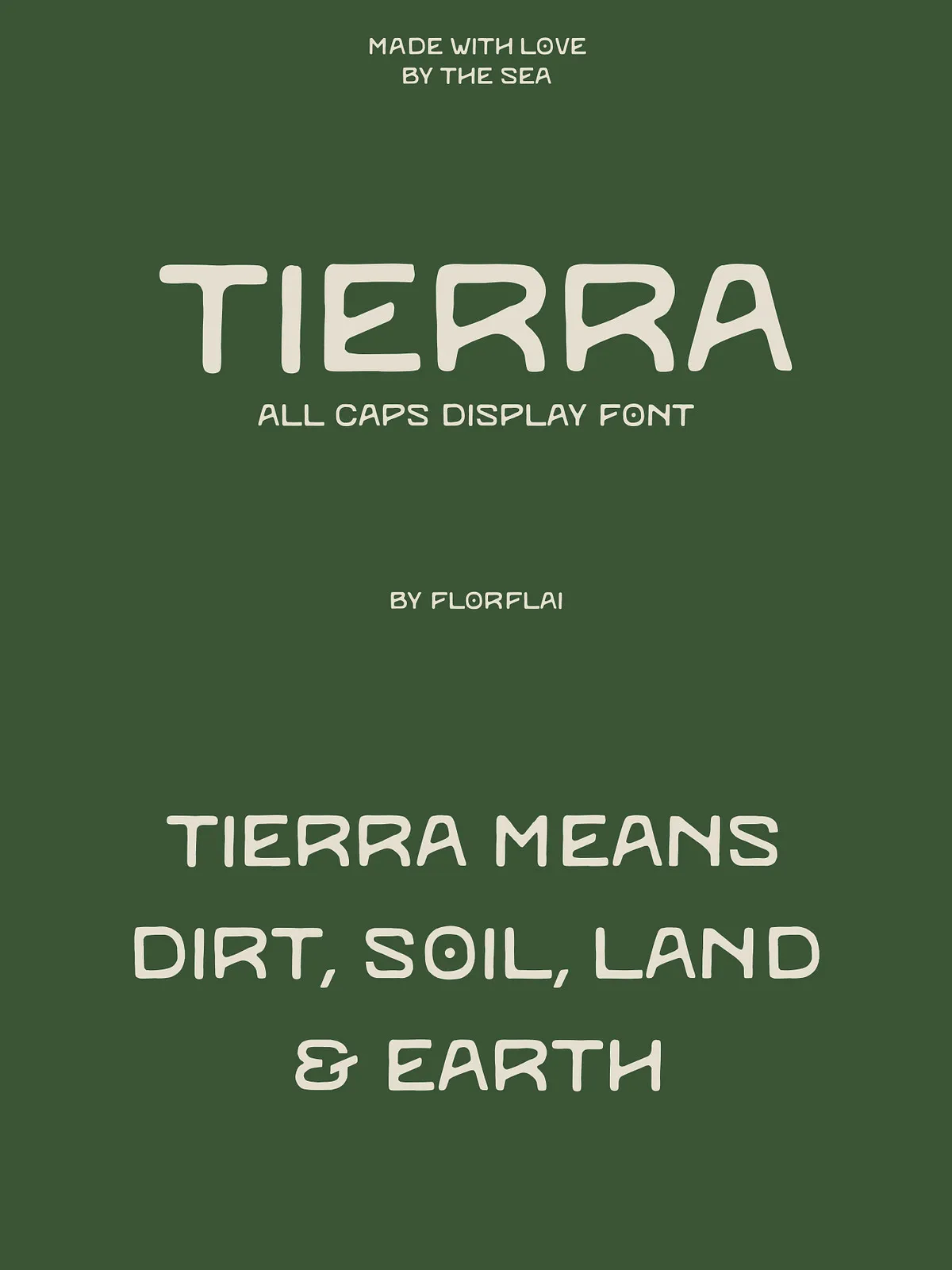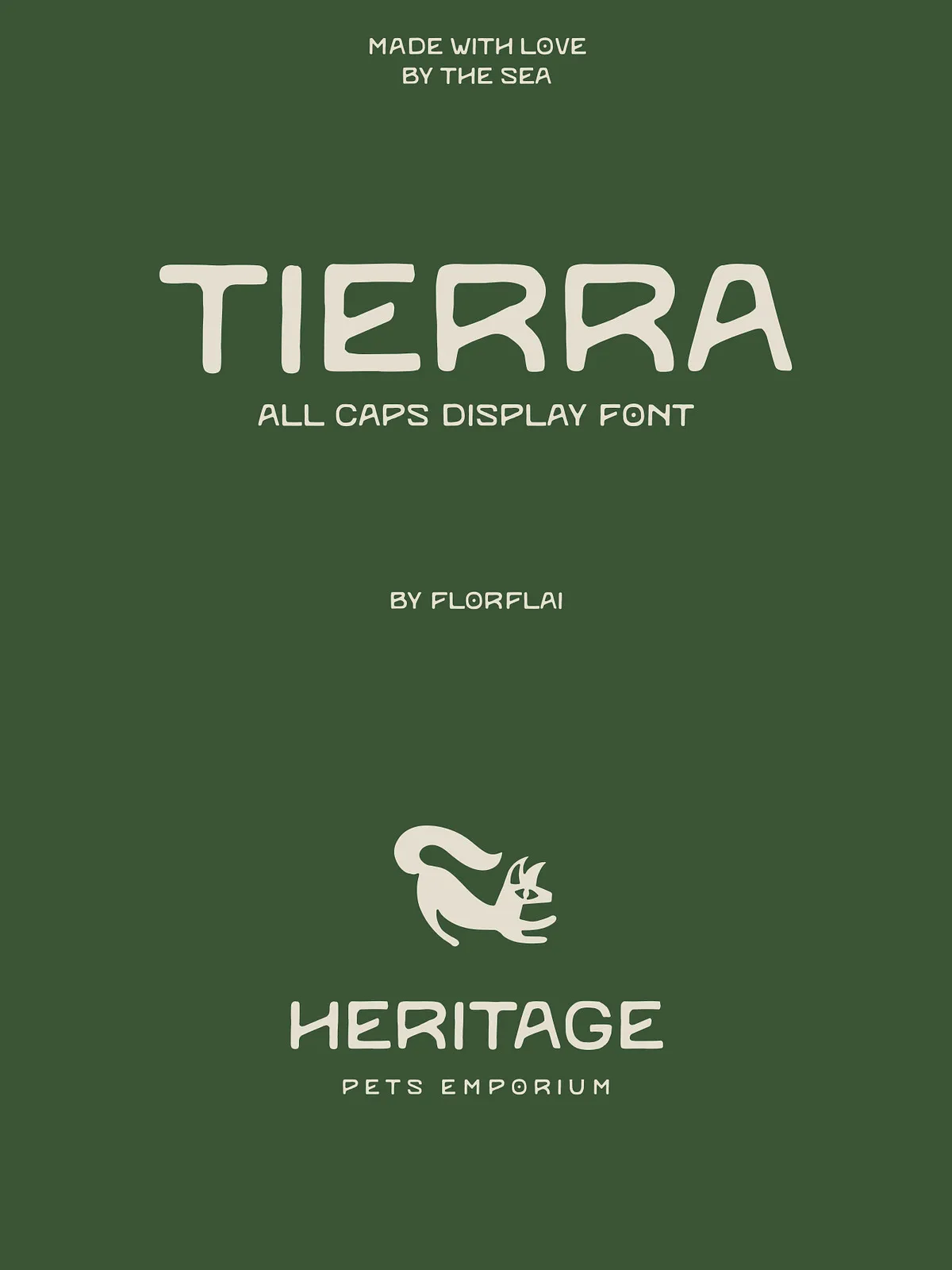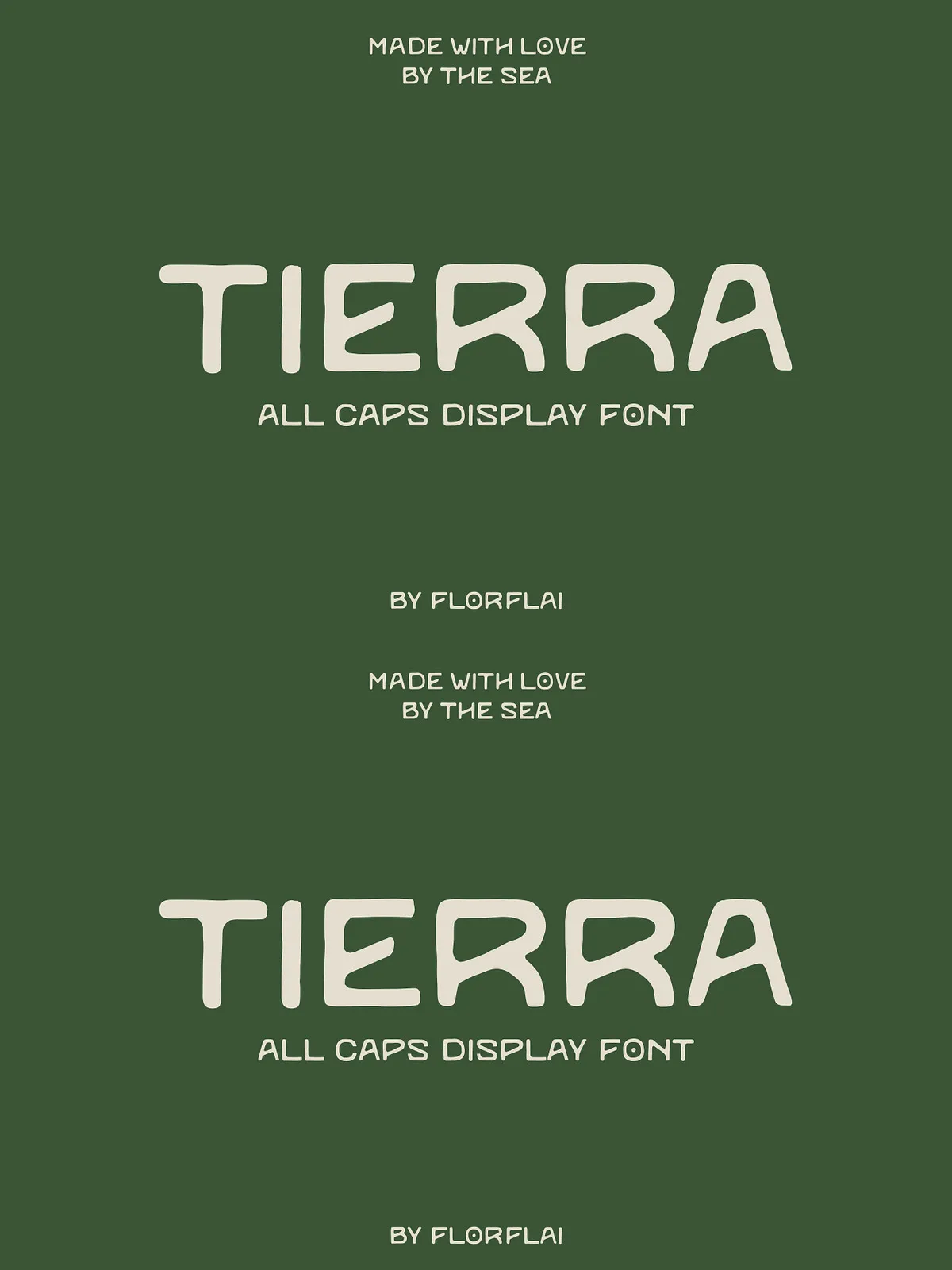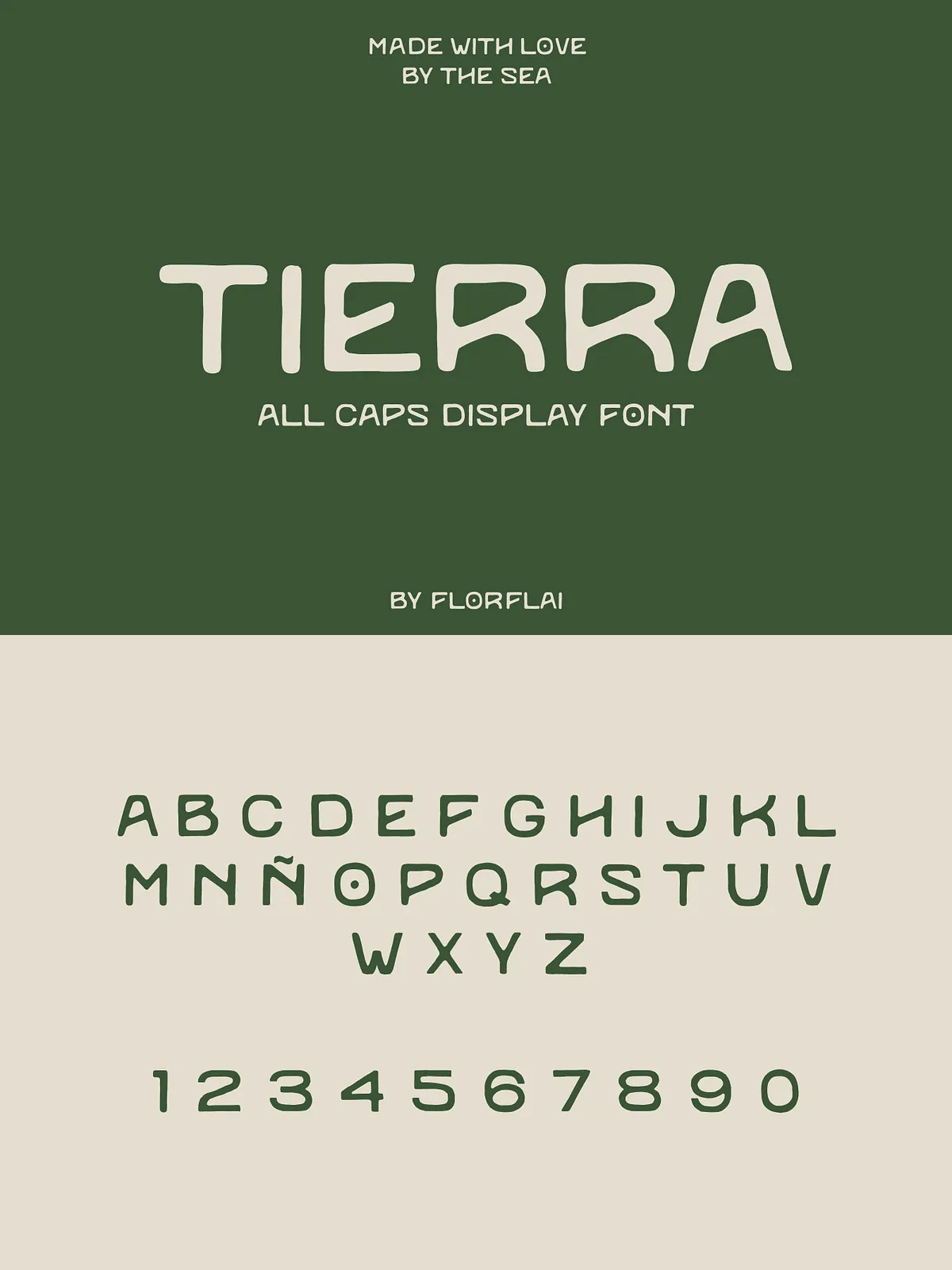
Tierra Font
Tierra is a display font that embodies the essence of the earth – “tierra” in Spanish means earth, land, dirt, and soil.
This sans serif font blends simplicity with an earthy feeling, reflecting the natural textures of the ground beneath us. Its characters feature subtle irregularities, echoing the organic imperfections of soil and stone, making it ideal for branding, environmental graphics, and projects that aim to evoke a sense of groundedness and authenticity.
Tierra connects design with the natural world, offering a foundation for creative expression that resonates with the richness and stability of the earth. Its versatility and natural charm make it perfect for conveying a deep connection to our planet in a variety of contexts.